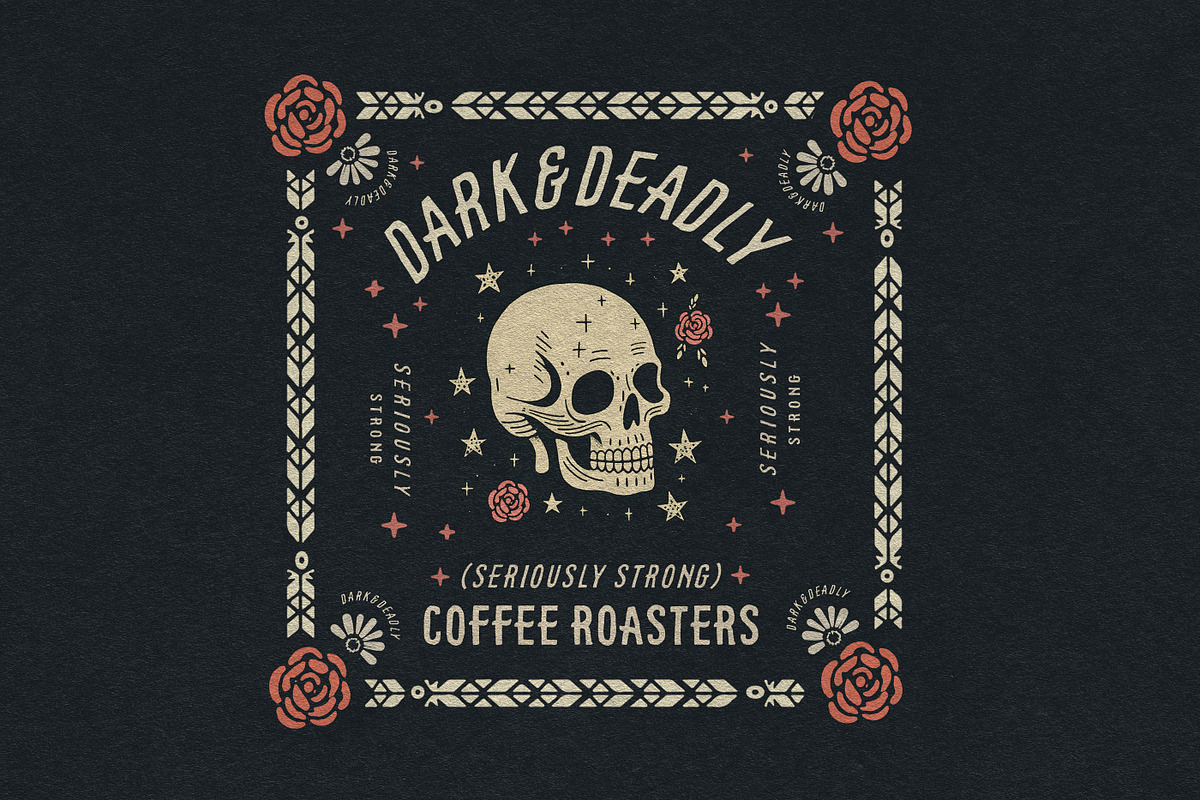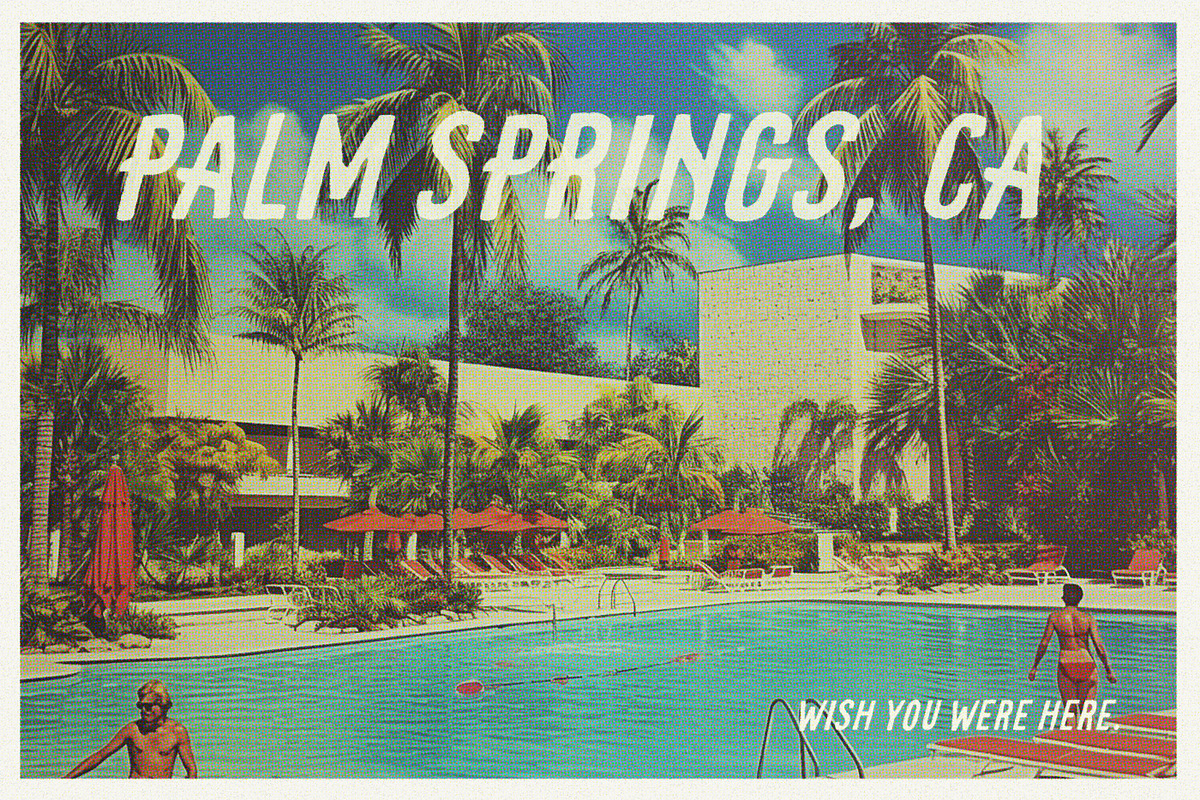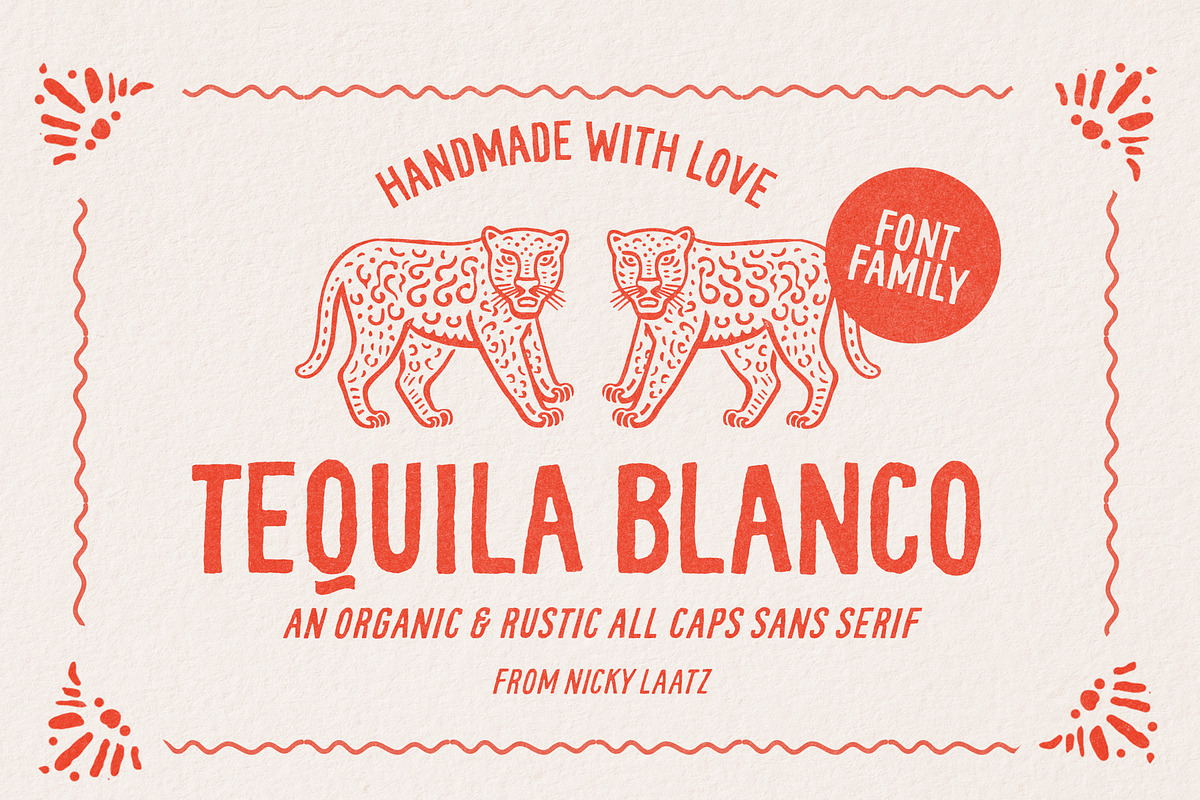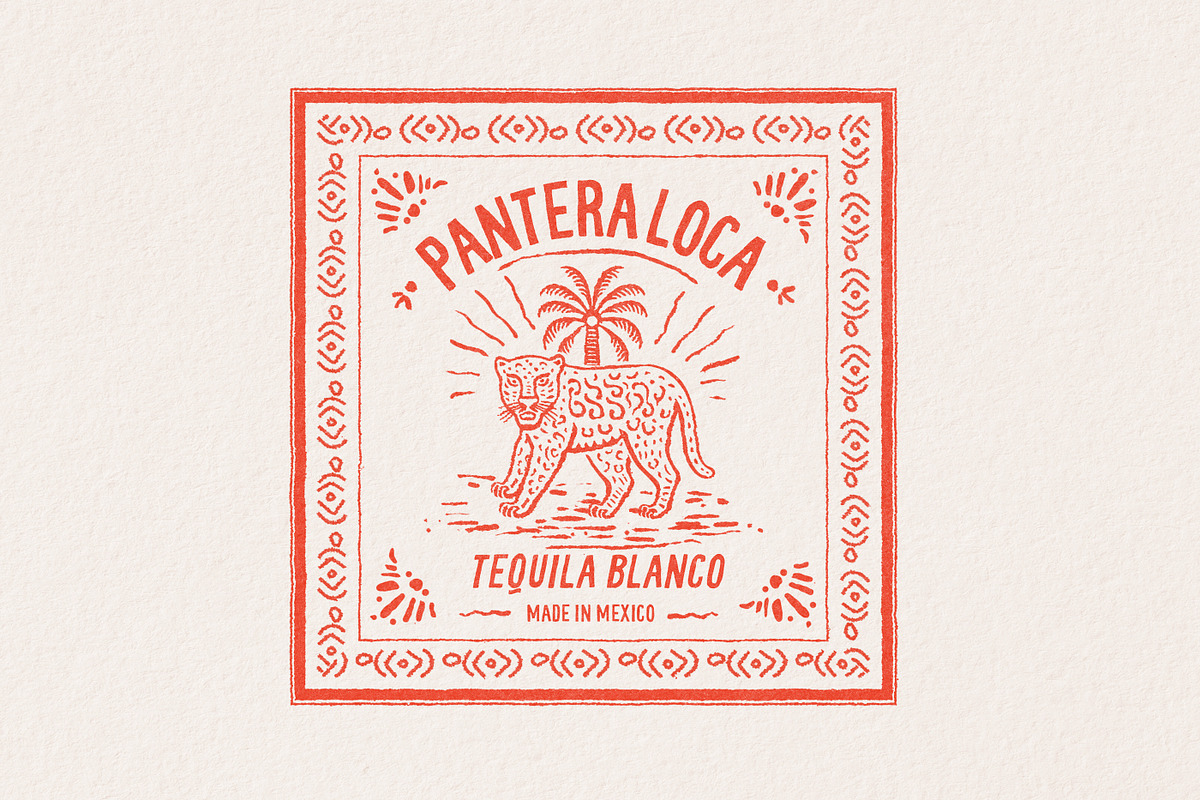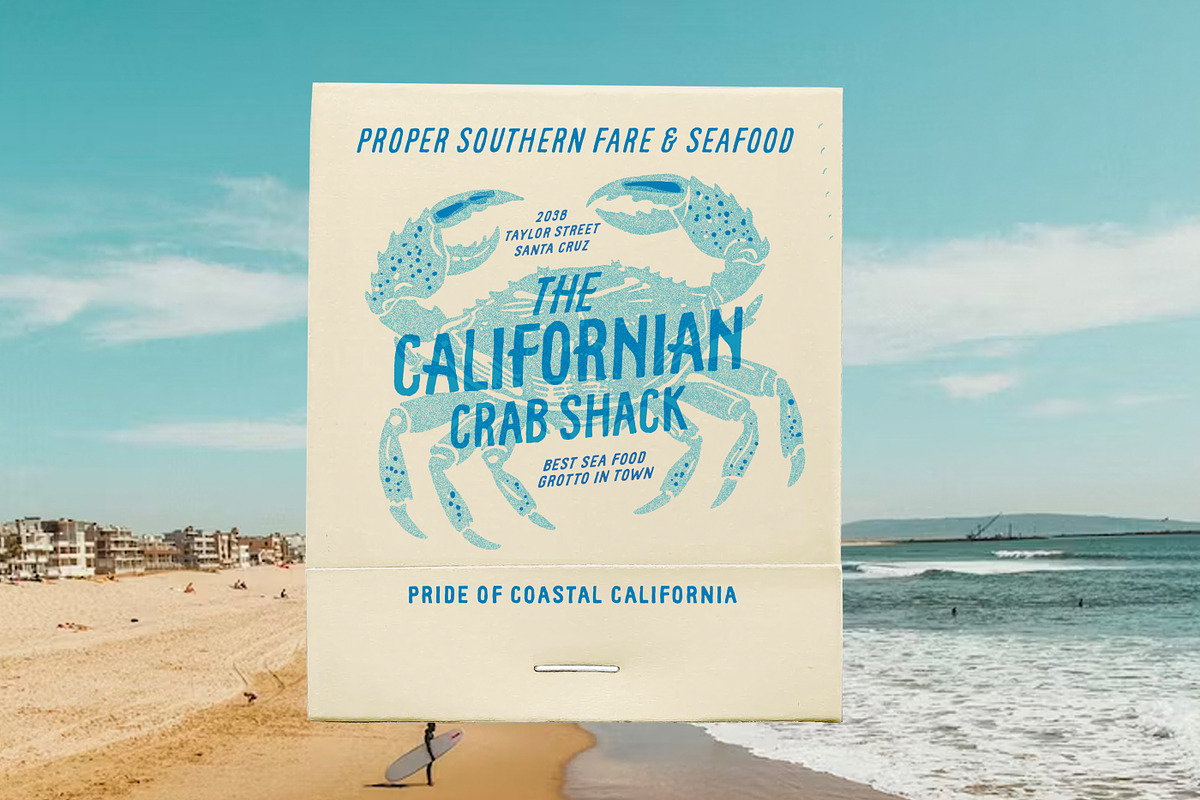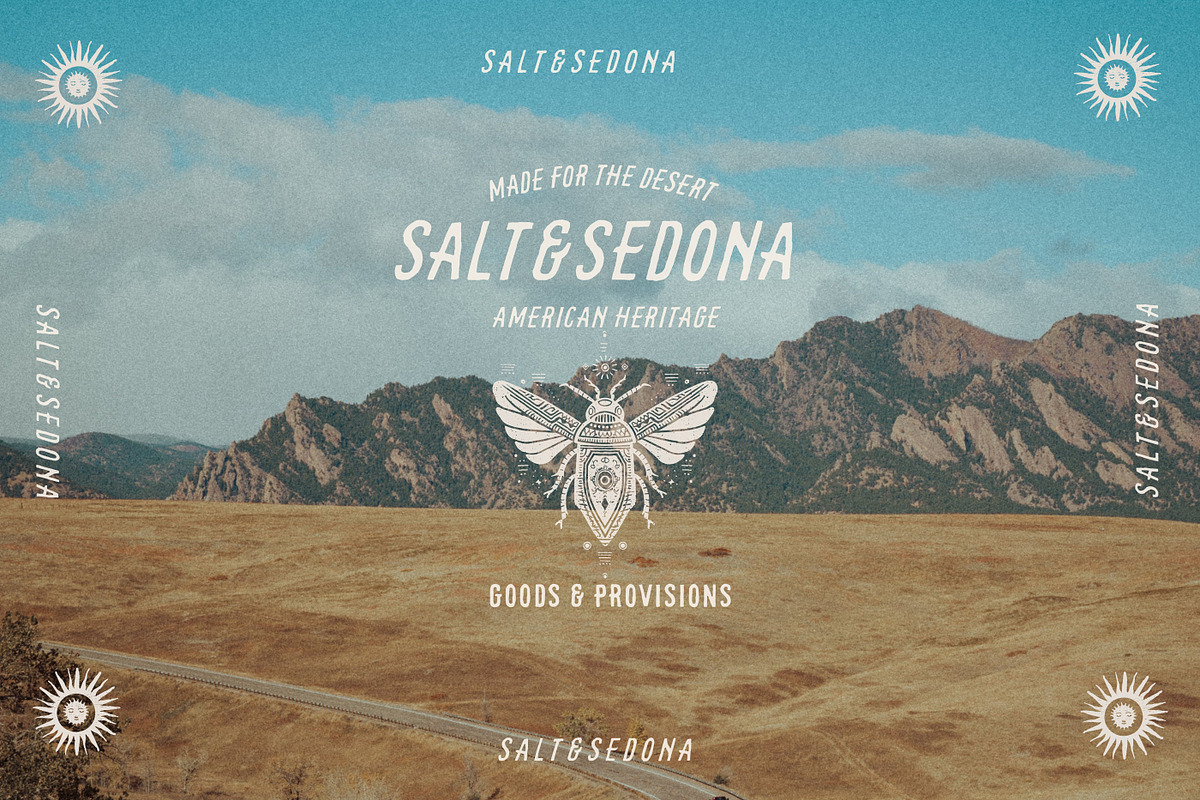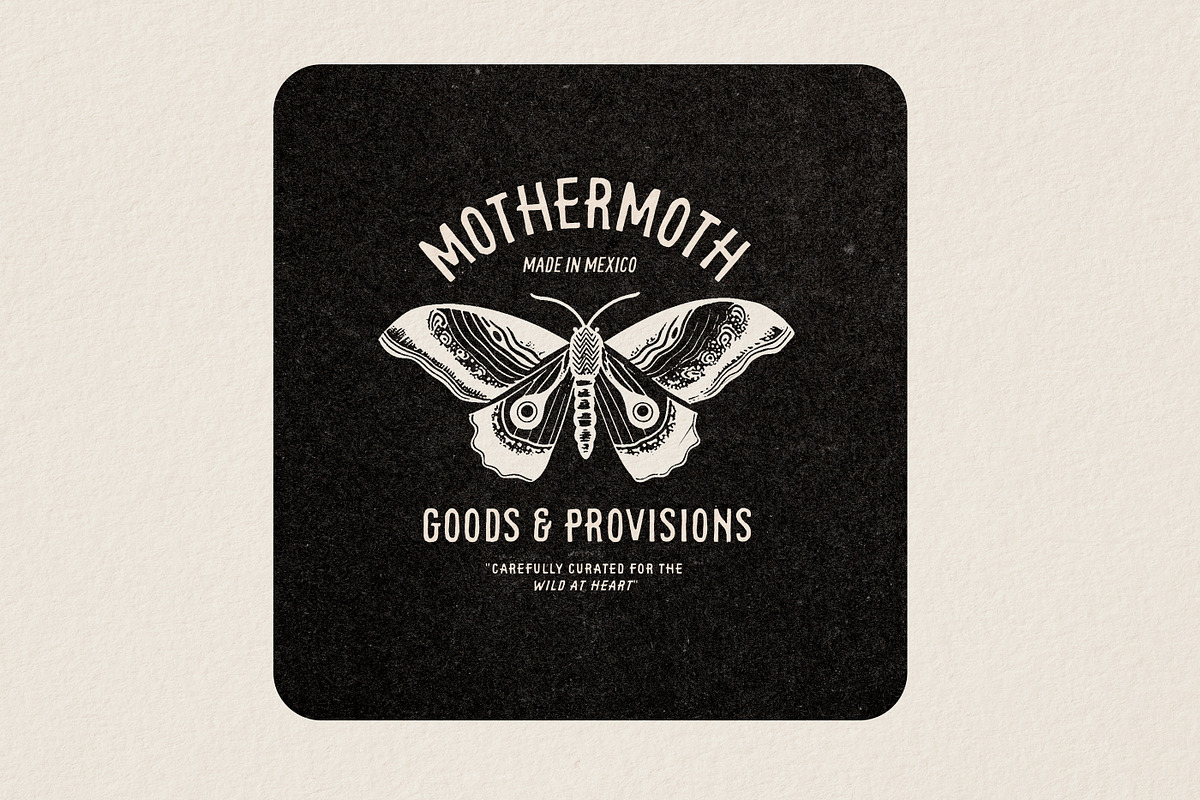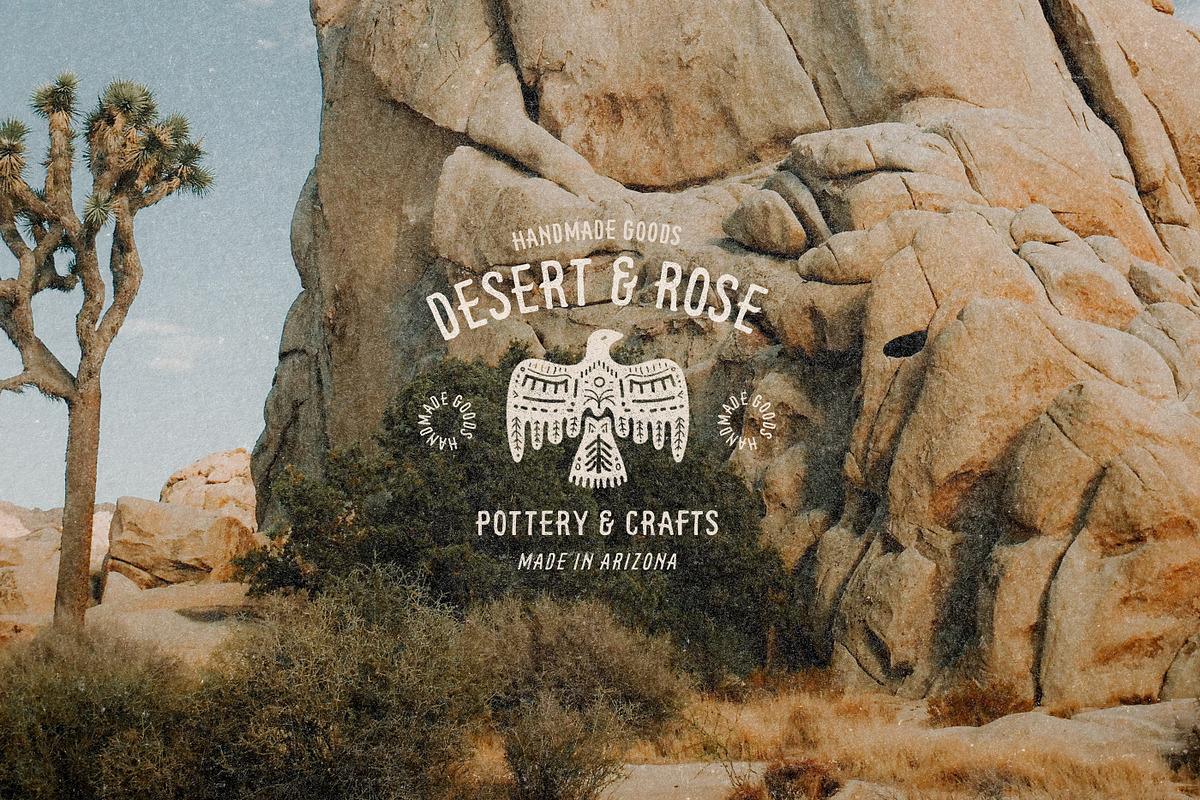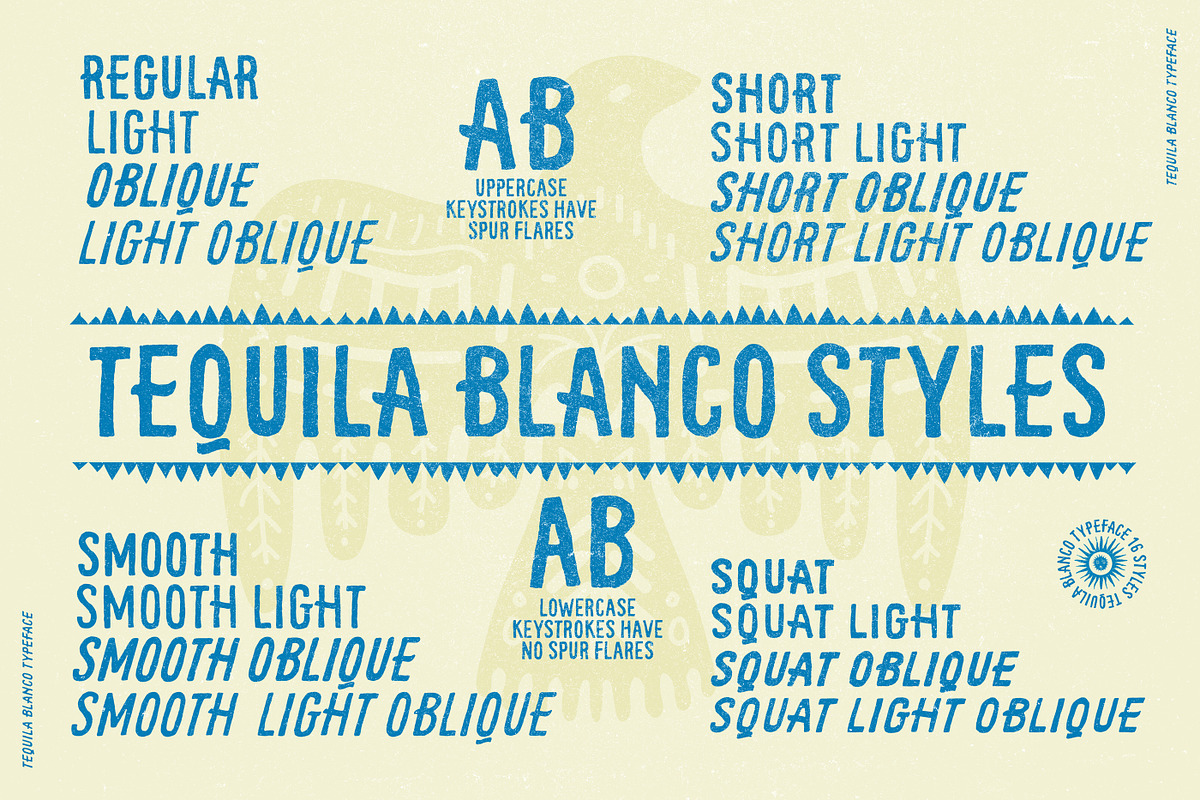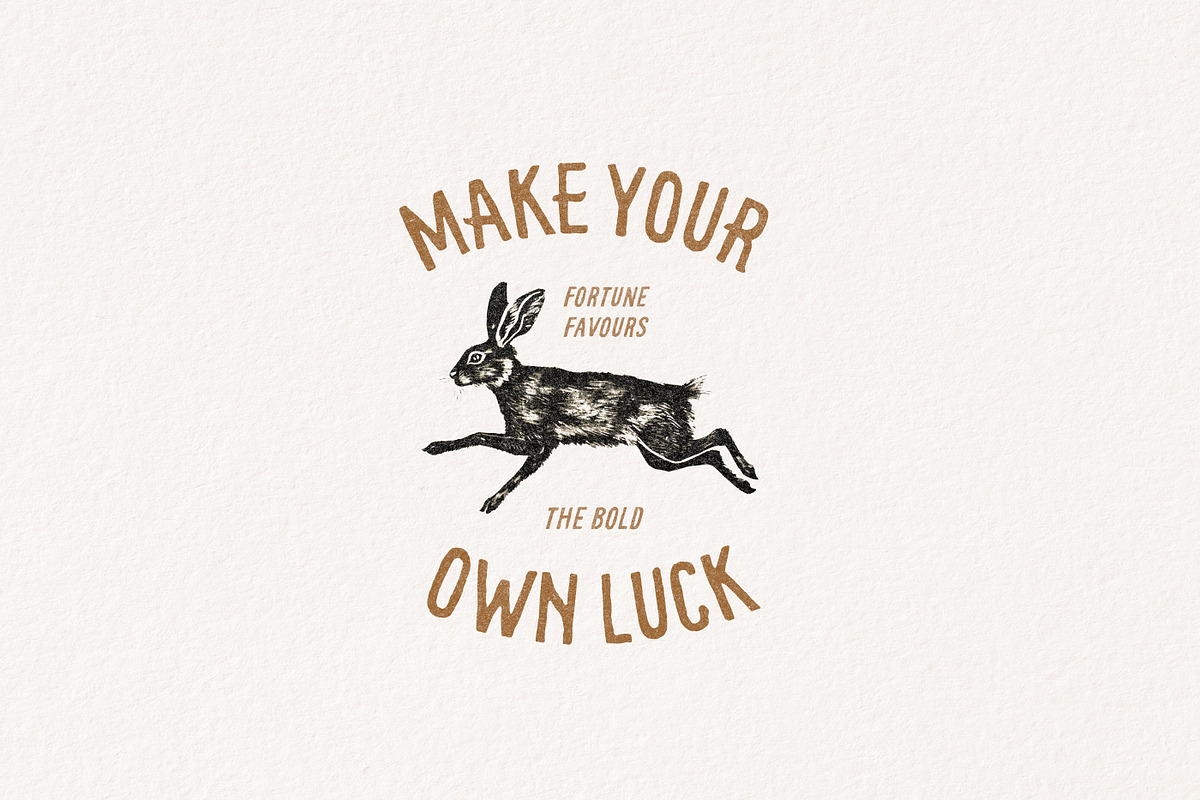
Tequila Blanco - Hand drawn Sans
Say hello to Tequila Blanco!
An all-caps typeface with a rugged and rustic aesthetic, designed to embody the untamed spirit of the Arizona desert :)
The characters have a handcrafted feel, with imperfections and rough, worn edges that give them a touch of rustic boho charm.
The uppercase keystroke characters have little curved spurs in some letters, to add a little extra rustic personality where you need it.
Bound to evoke a sense of wanderlust and adventure, perfect for rustic branding, logos, packaging, quotes, and so much more.
The family consists of 15 variations of the original font, A light version, a slightly smoother version, a shorter version and a squatter version including oblique versions of all.